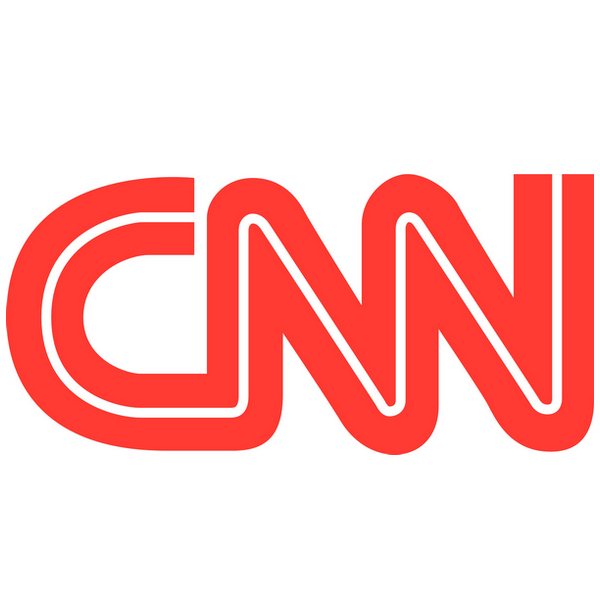
CNN Font
Fonts in UseCNN (Cable News Network) is a global news network founded in 1980 by Ted Turner. It is known for its 24-hour coverage of news, politics, and current events from around the world.
CNN's distinctive logo features the letters "CNN" in vibrant red, separated by a white line running through the center. The logo, which has been in use since the network's inception, was custom-designed. A font called CNN, created by Ray Larabie, is available for free download in the Fonts Used Section.